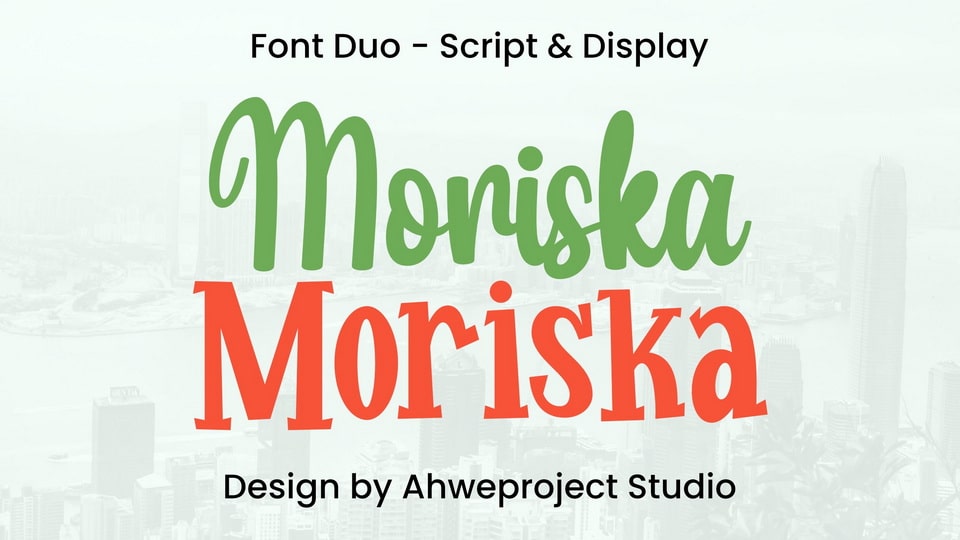
Download Moriska font, a unique blend of warm, handwritten touches and timeless modern aesthetics. Its flowing script font offers an authentic character.